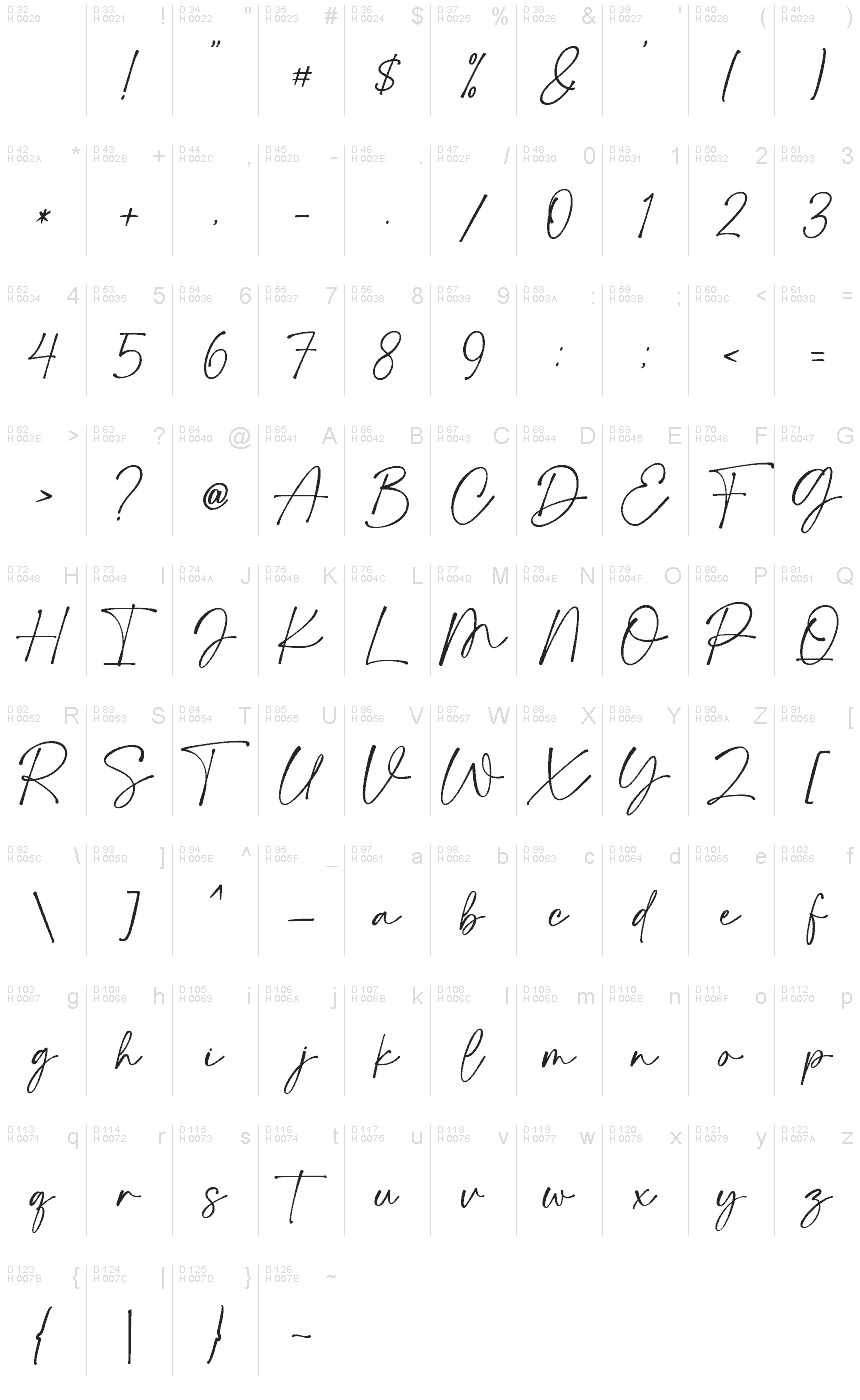
Galatine
Galatine is a script font by Ramli Setiadi. It features lowercase and uppercase letters in one clean style with an appealing calligraphic flow. It can be used on its own or paired with modern display fonts. Galatine can be used on a variety of projects including logos, social media advertisements, quotes, cards, branding designs, packaging designs, etc. This is a light weight version so it will work great on larger scale designs.